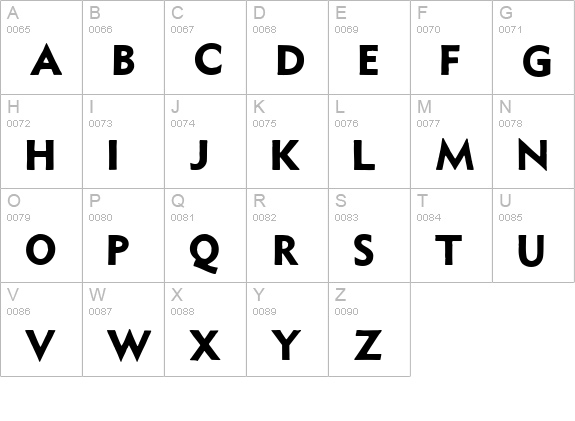
Metro Black HPLHS is a maximum-weight, dramatic variant in the Metro typeface family \xE2\x80\x94 well suited to maximum-impact headlines, posters, and packaging.
Metro Black HPLHS font is a modern and sleek typeface that exudes sophistication and elegance. With its clean lines and bold presence, this font is perfect for creating eye-catching designs that demand attention. Whether used for headlines, posters, or branding, Metro Black HPLHS font adds a touch of class to any project. The best part? Metro Black HPLHS font is available for free download at FontsMarket.com. Now you can elevate your designs without breaking the bank. Don't miss out on the opportunity to add this stylish font to your collection and take your projects to the next level. Download Metro Black HPLHS font today and let your creativity shine.